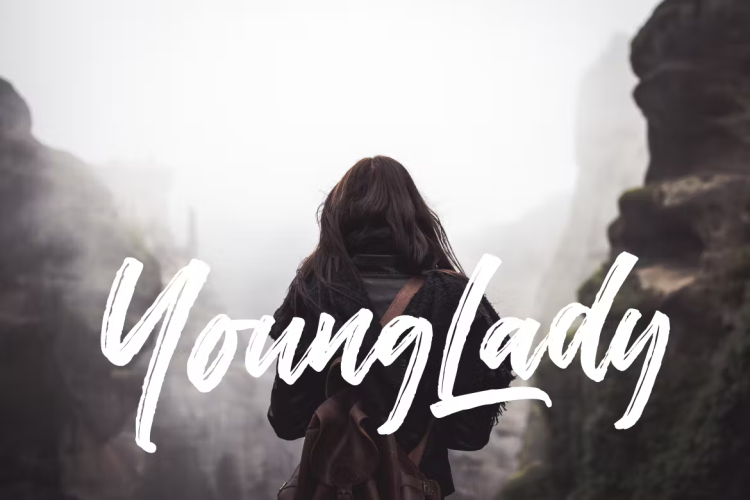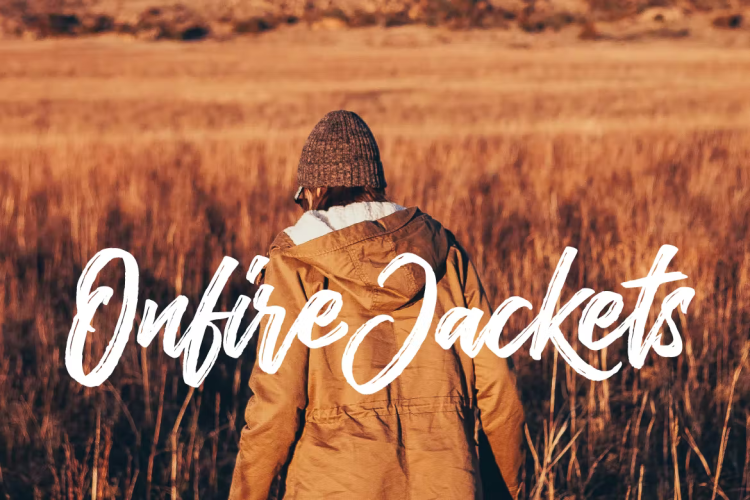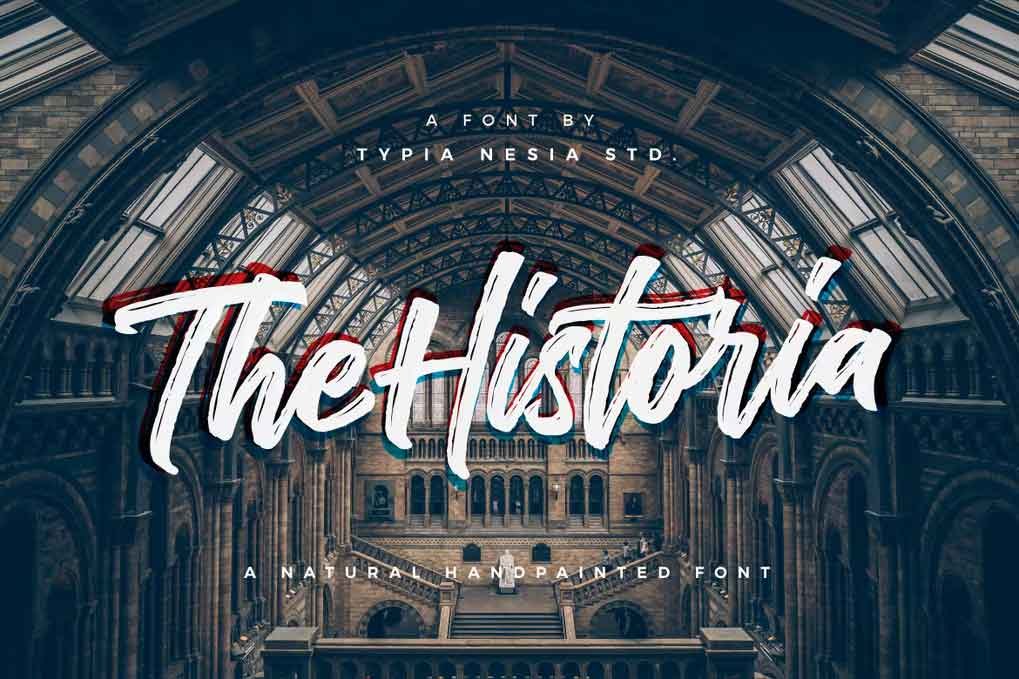
The Historia Font
Introducing The Historia! a vintage and natural handpainted font. Suitable for any design needs, branding, modern advertising design, Art Quote, Book/Cover Title, special events, custom mug, pillow, t-shirts, any brush lettering needs and more.
The Historia comes with upper and lowercase Standard Characters, Punctuation, Numerals. And some glyphs variation of the OpenType features such as Standard Ligatures and Stylistic Set. Includes a range of multilingual support.
Where The Historia Font works best
The Historia Font brings a personal, handwritten warmth to invitations, menus and place cards.
Craft brands — coffee, cosmetics, bakery — use scripts like The Historia Font for signature-style logos and labels.
Pair The Historia Font with a plain sans for quotes, stories and Pinterest pins that feel handmade.
What is The Historia Font good for?
The Historia Font is a Script And Handwritten typeface tagged Branding, Brush, Modern, Script. It works well for headlines, logos, posters, social media graphics and branding projects that need a distinctive script and handwritten look.